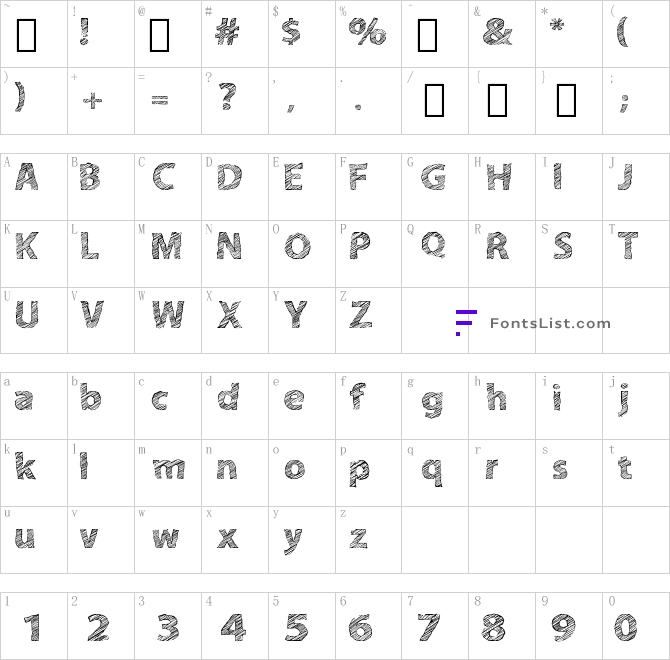
- Font Name:A bit sketchy
A-bit-sketchy-regular.ttf is a very beautiful artistic font, A-bit-sketchy-regular.ttf is widely used in the design and printing of various books and pictures,A-bit-sketchy-regular.ttf has a strong visual impact,A-bit-sketchy-regular.ttf is a commonly used font in newspapers, magazines and books, and is used in posters, e-commerce Poster design, store design, logo design, font design and other fields.A-bit-sketchy-regular.